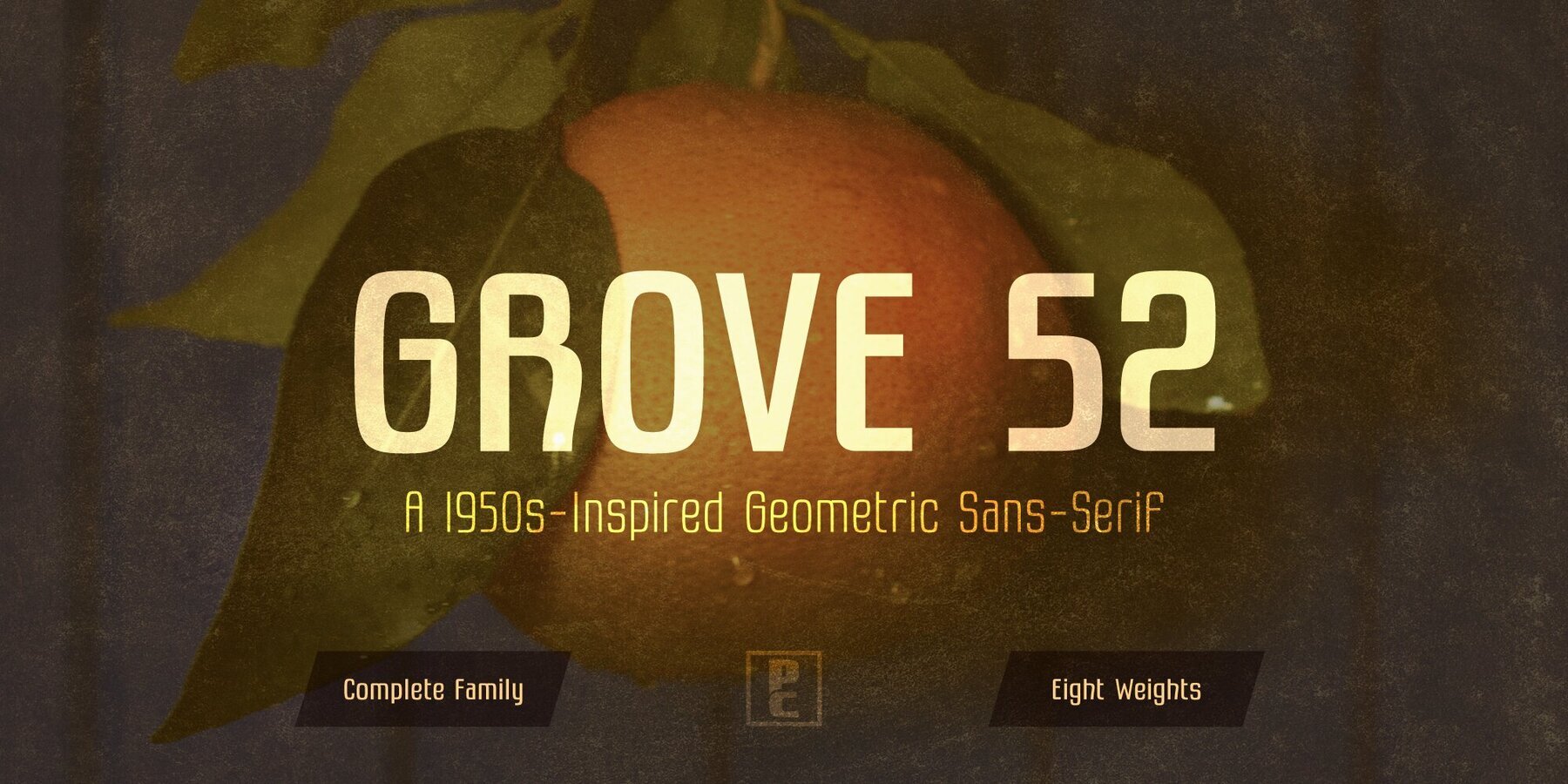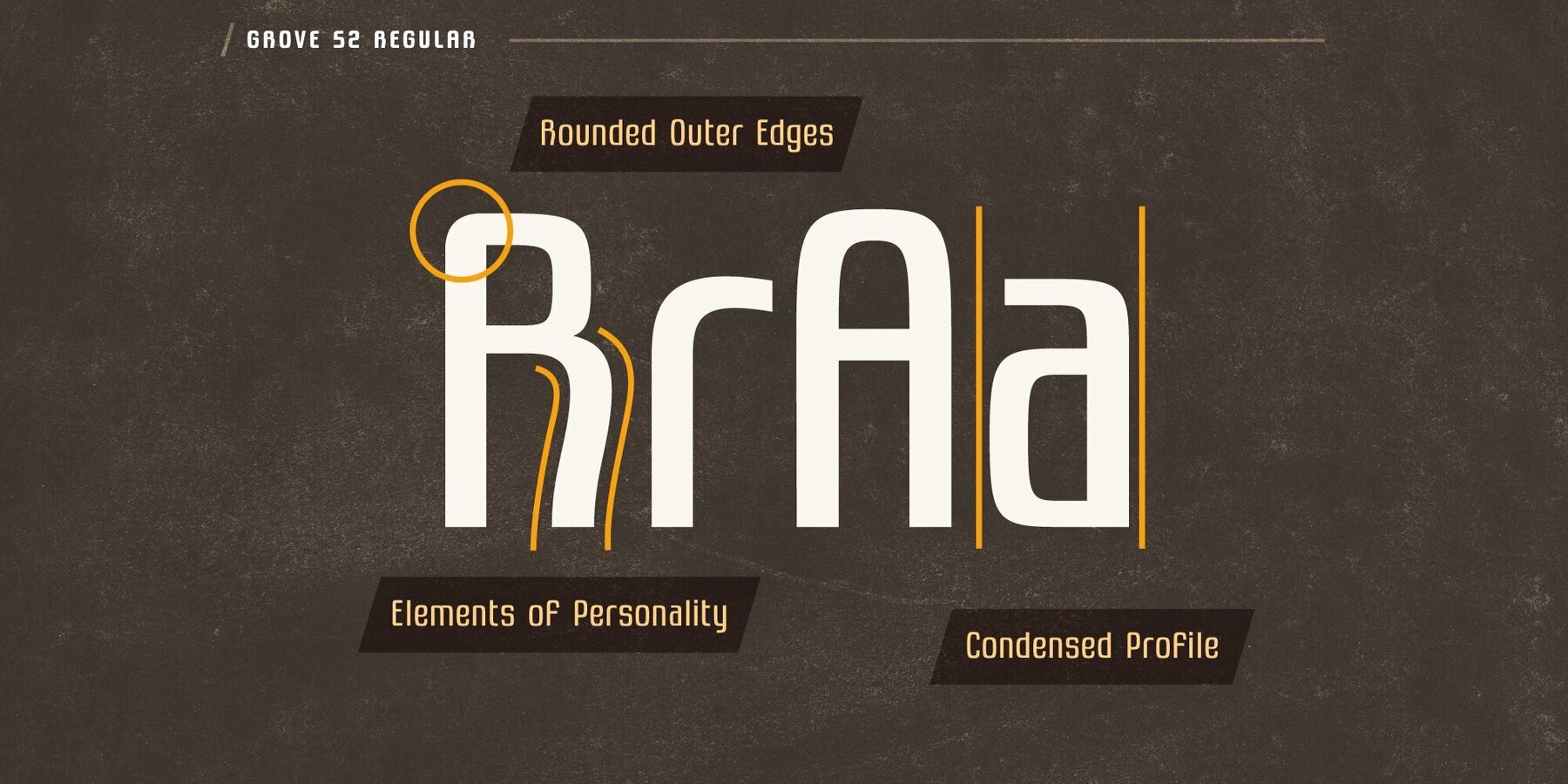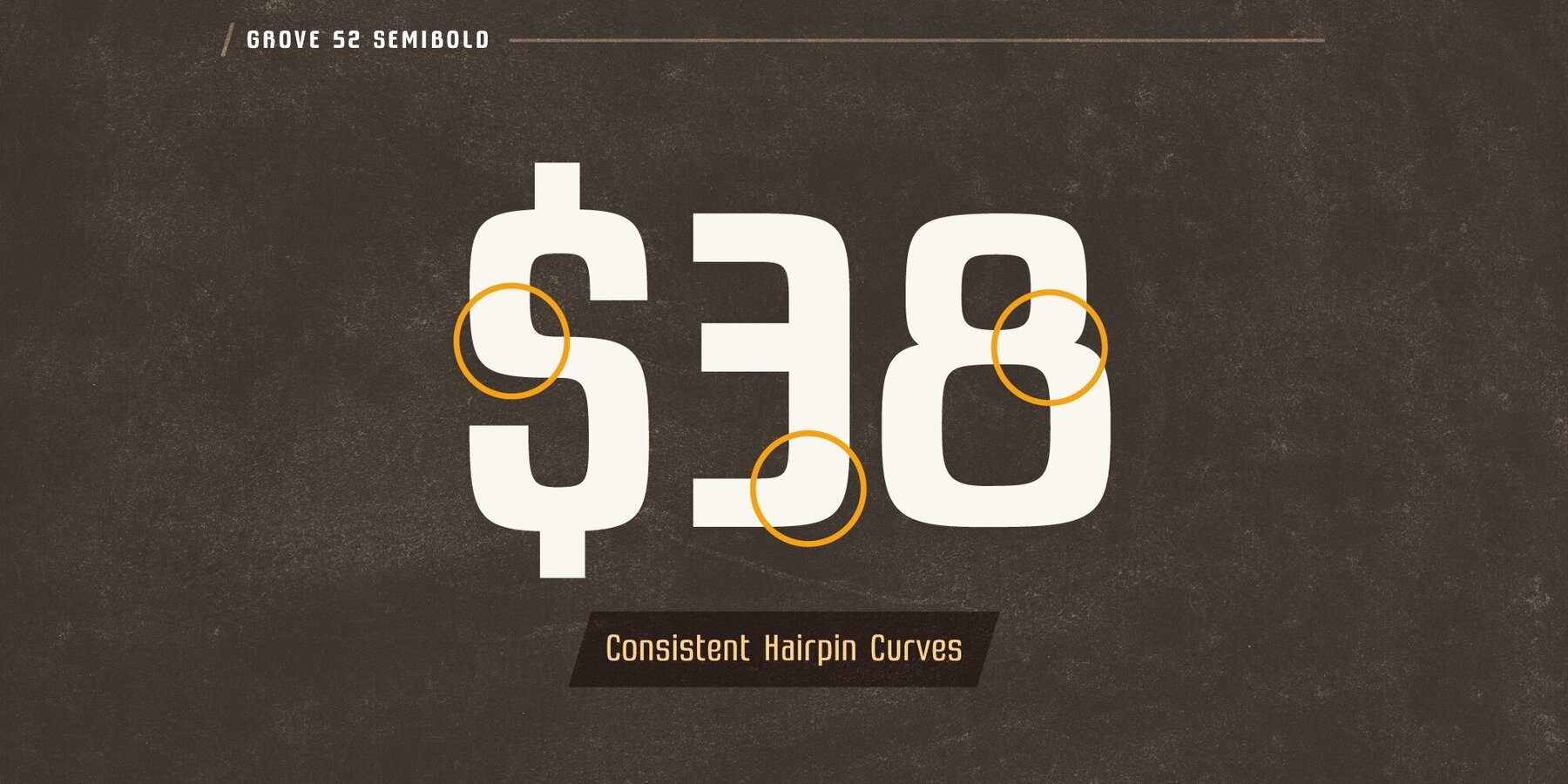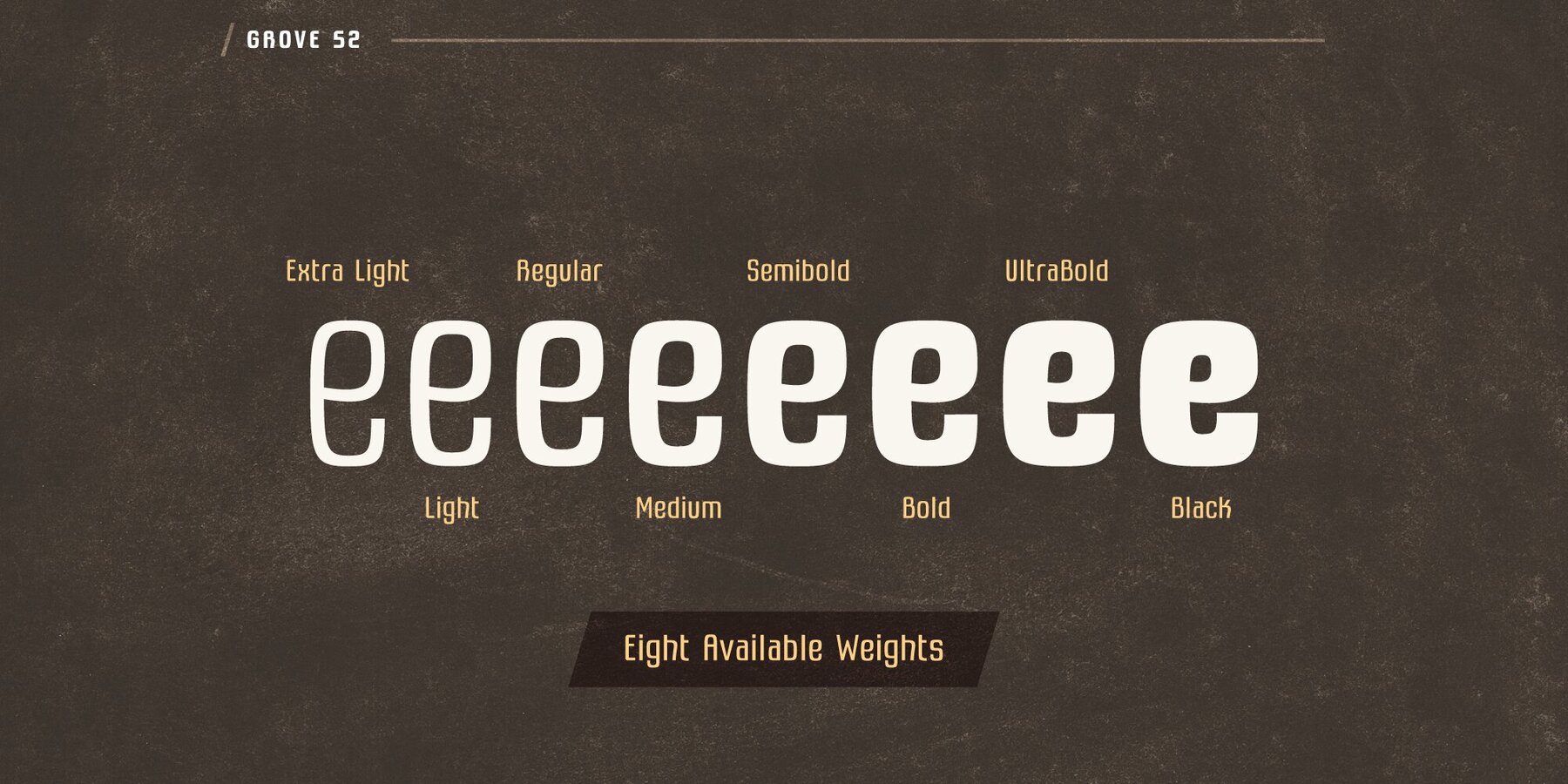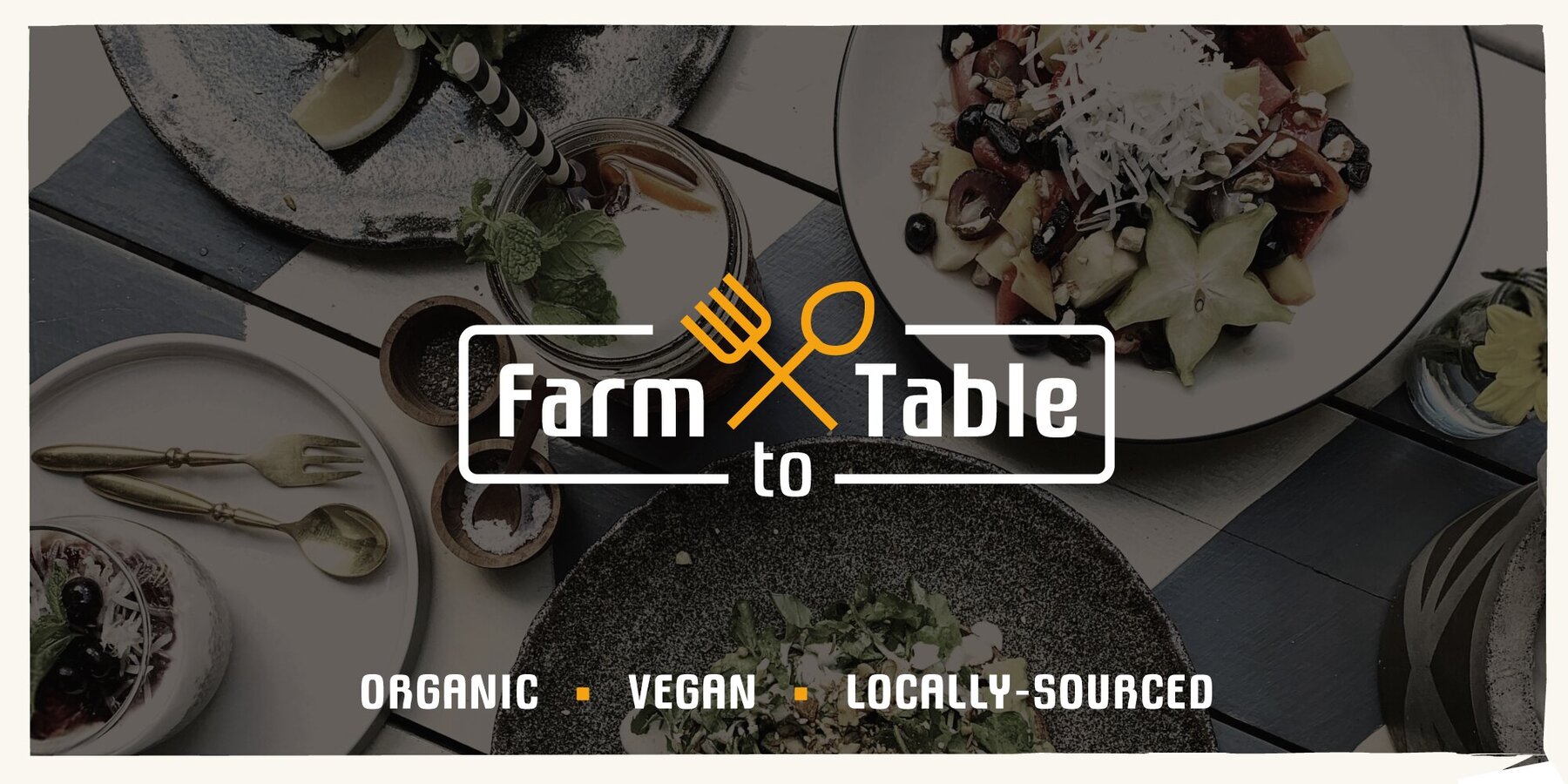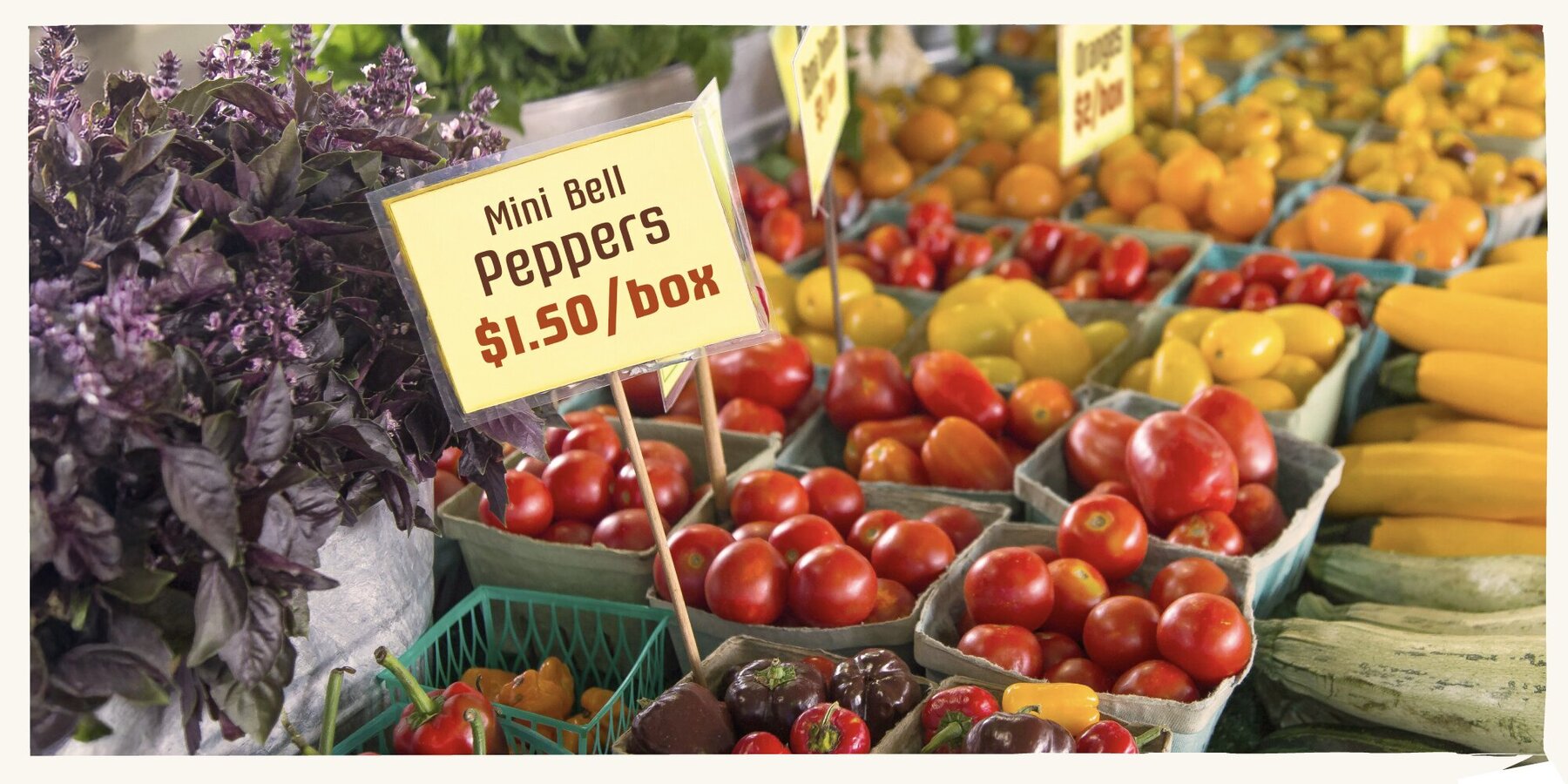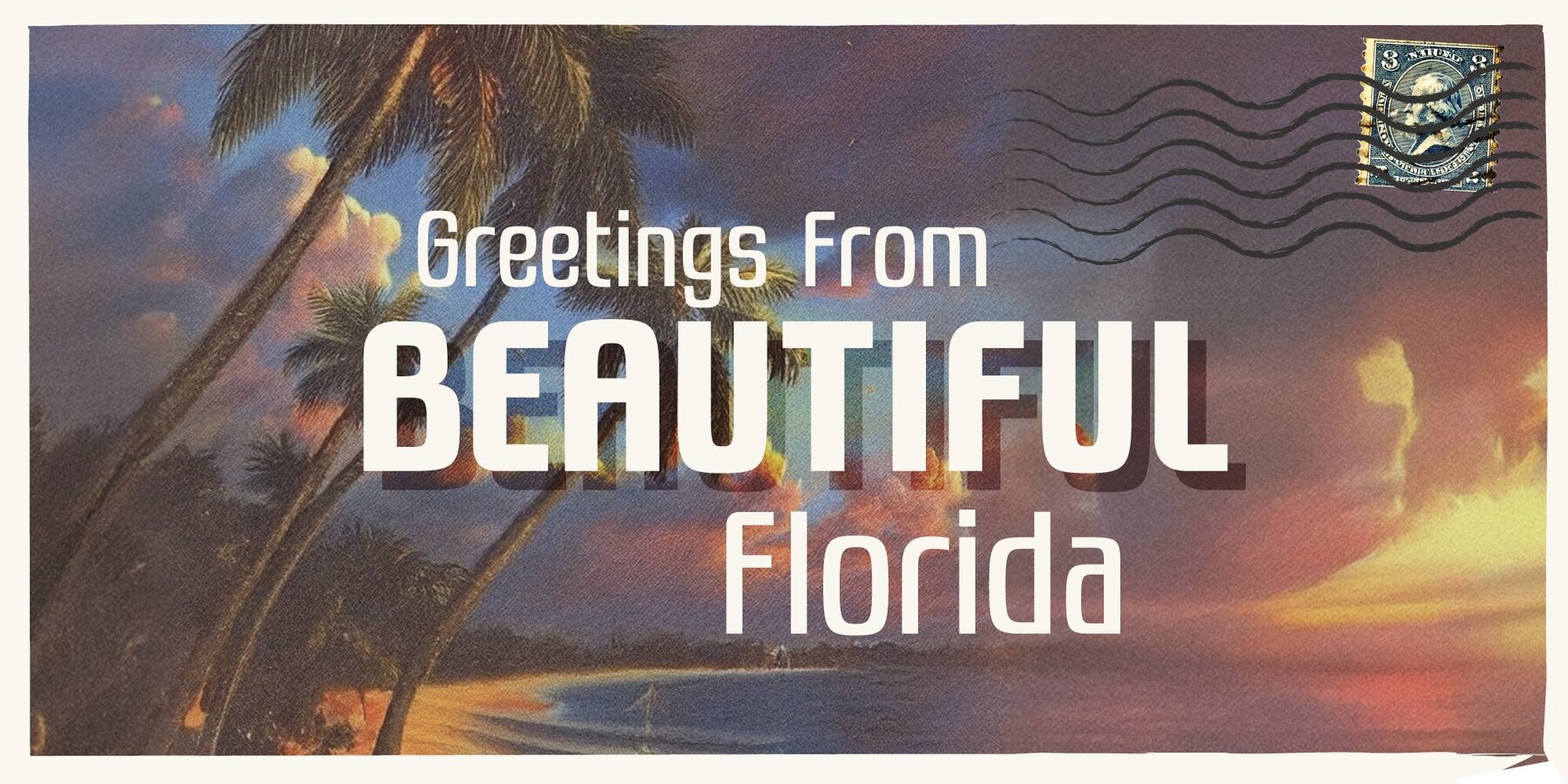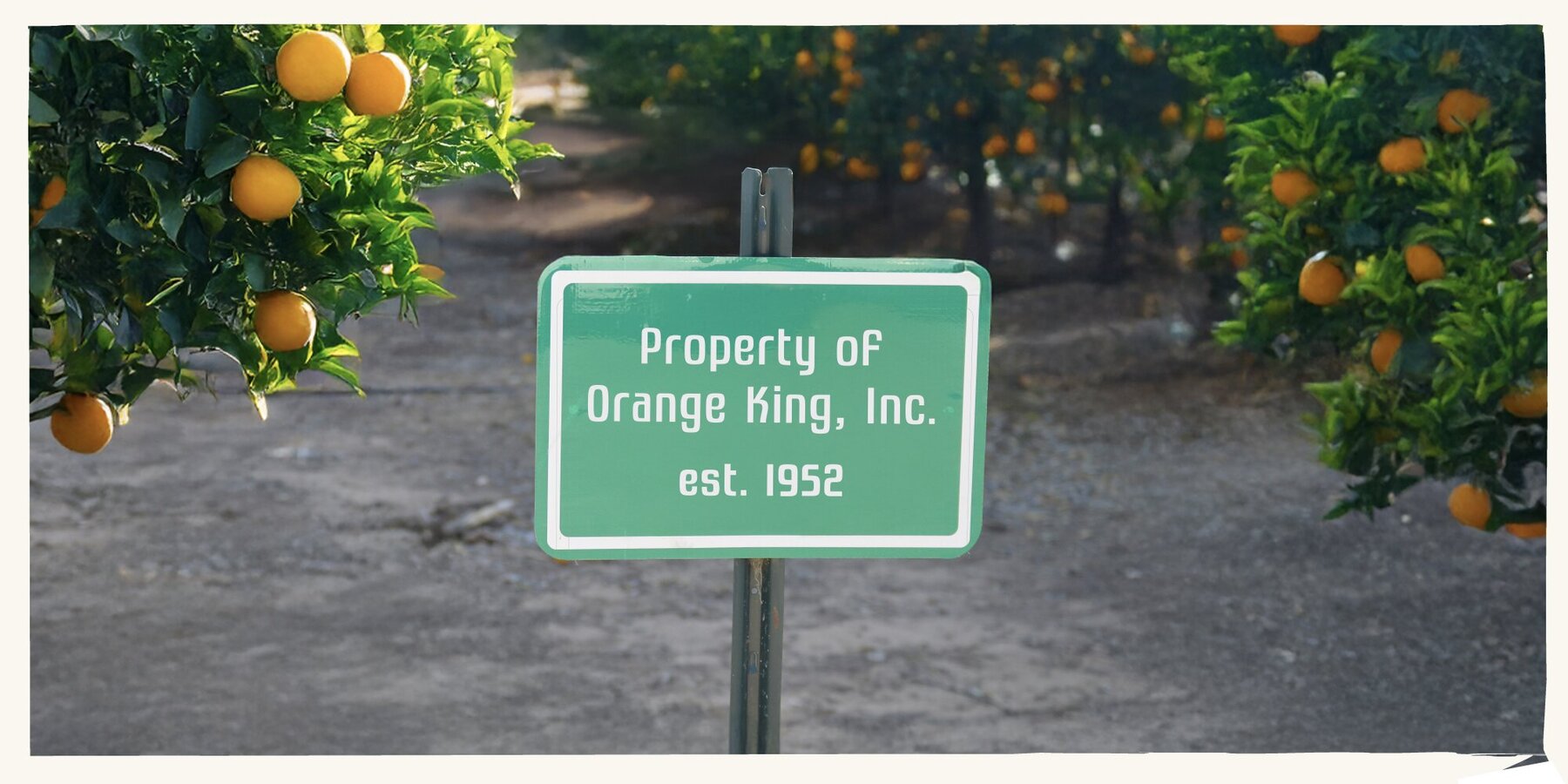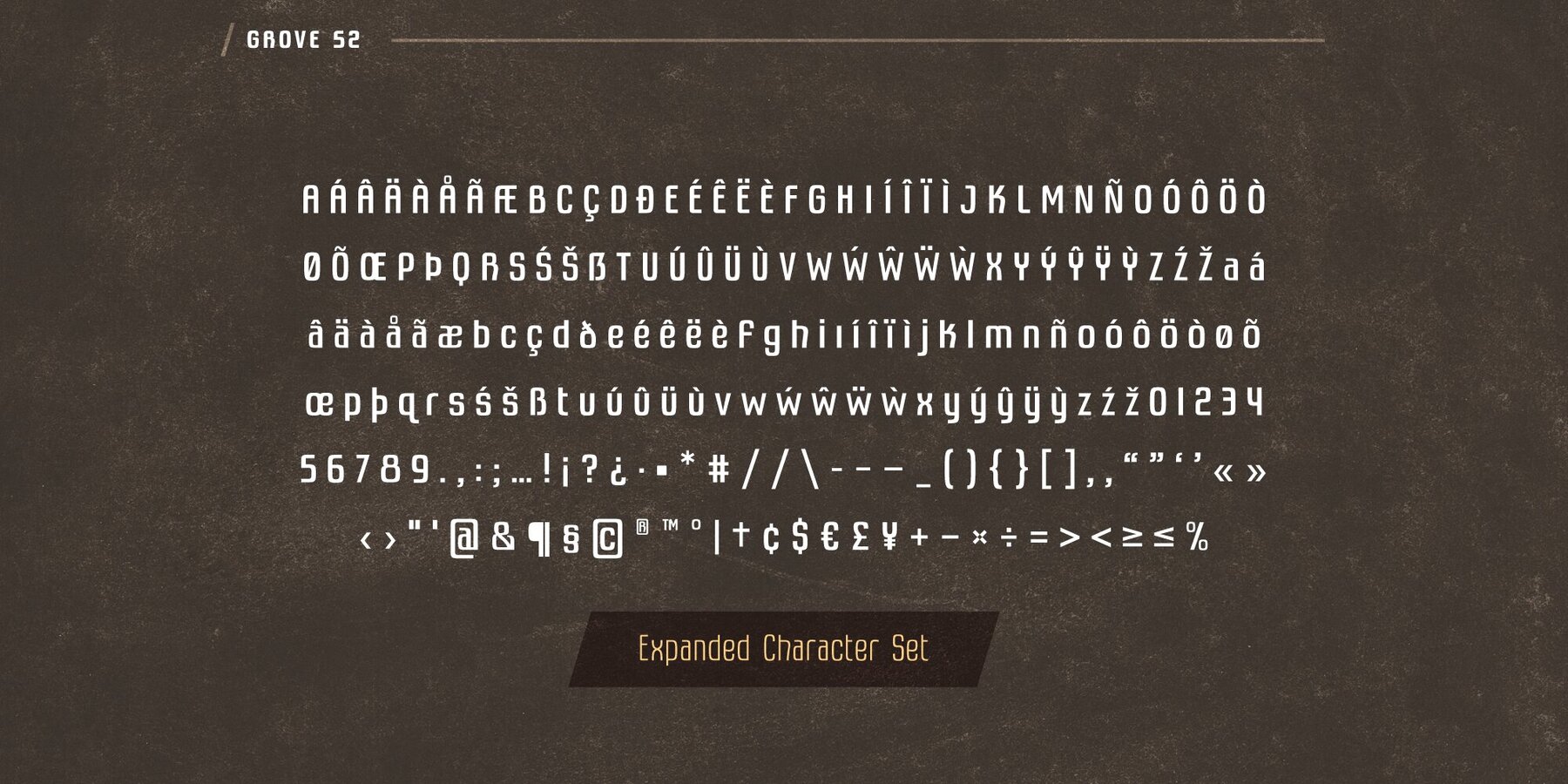
Grove 52 Font
Grove 52 is a geometric sans-serif font that draws inspiration from the iconic signage found throughout Florida’s citrus farms during the 1950s. Its design is rooted in the honest, utilitarian lettering seen on vintage industry signs, featuring narrow, tall letterforms and tight hairpin curves. This blend of classic structure and fresh, modern details—such as gently rounded corners and subtle flourishes—brings a distinctive personality and warmth without appearing overly casual. Designed with precise kerning and a robust multilingual character set, Grove 52 adapts easily to contemporary design needs. Its clean form and versatile presence work well for everything from bold headlines and engaging body text to logo design. The family includes eight weights, allowing for flexibility across branding, editorial projects, and signage. Grove 52 combines timeless appeal with modern functionality, making it a reliable choice for designs that want to evoke both nostalgia and clarity.Grove 52 Retro Geometric Sans-Serif